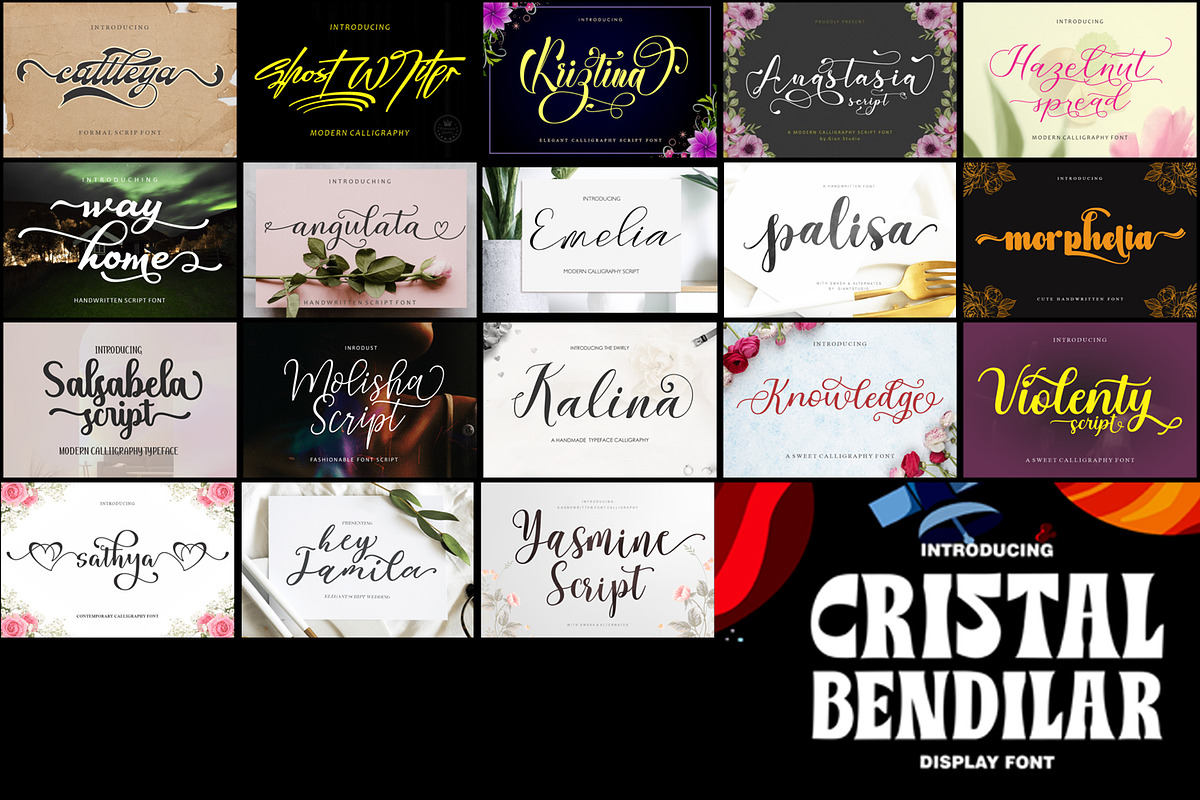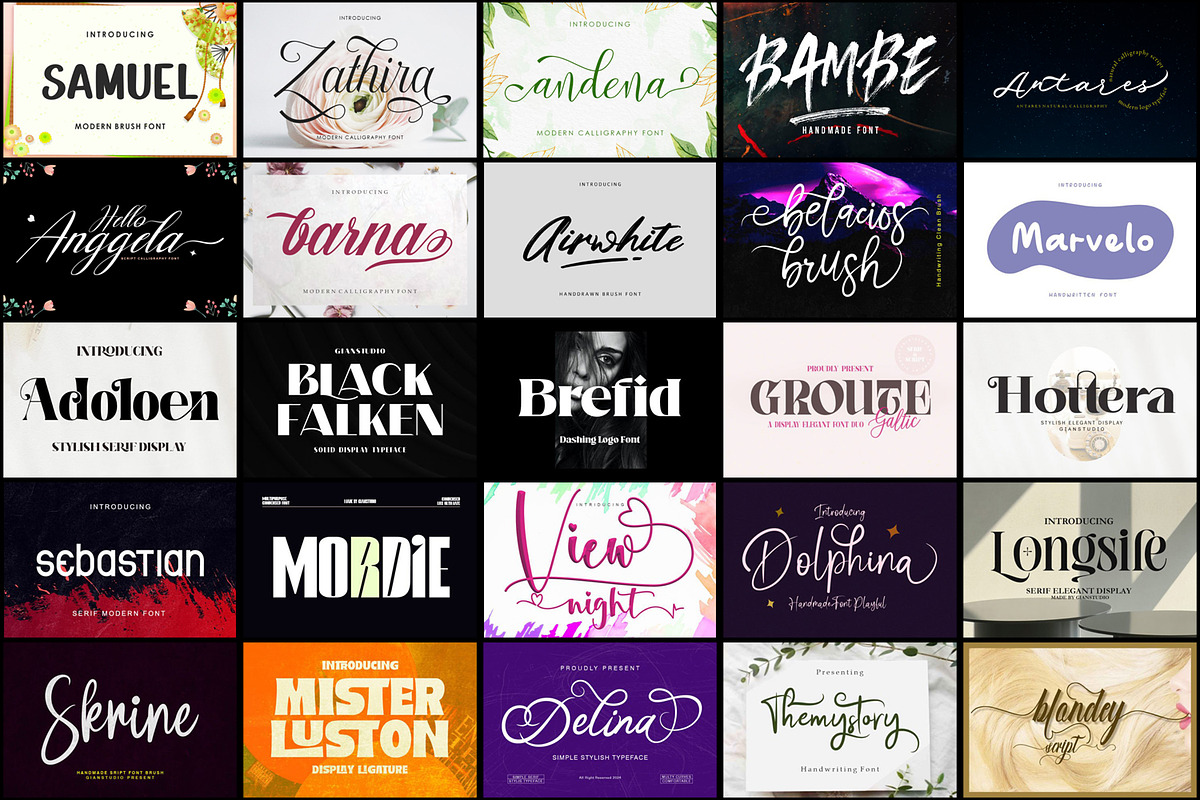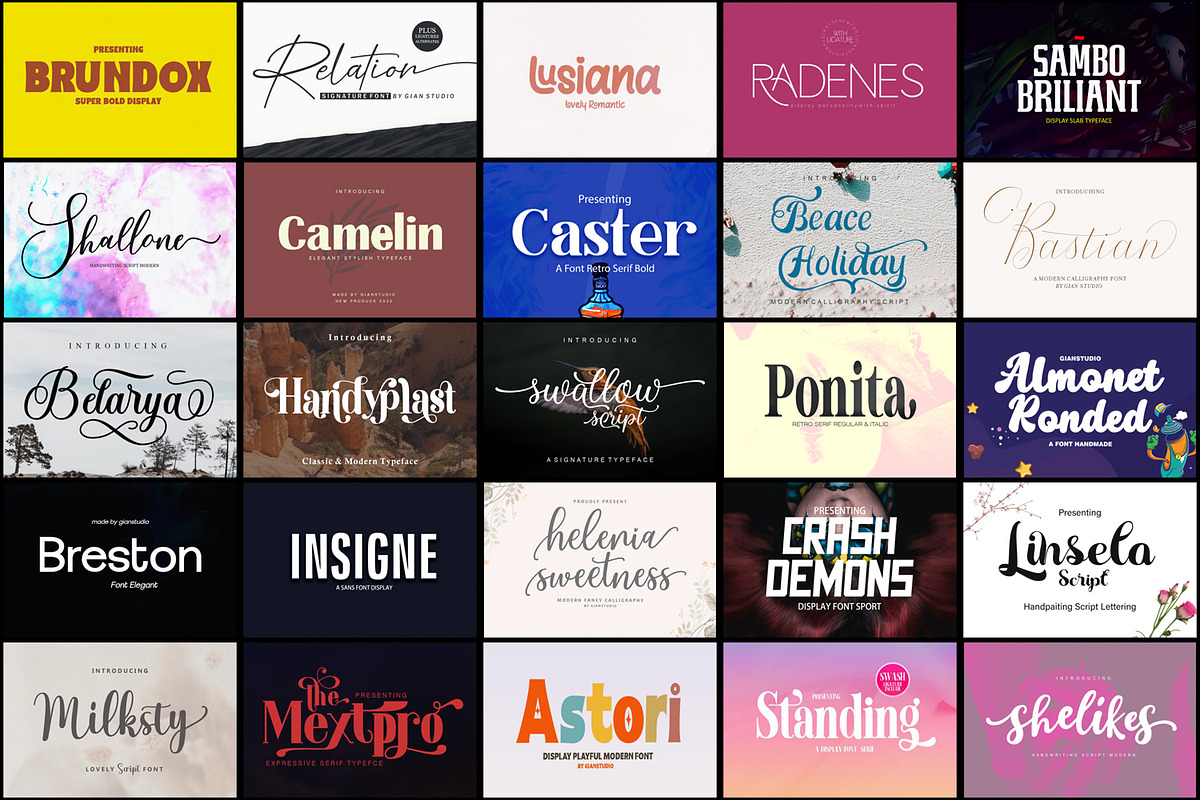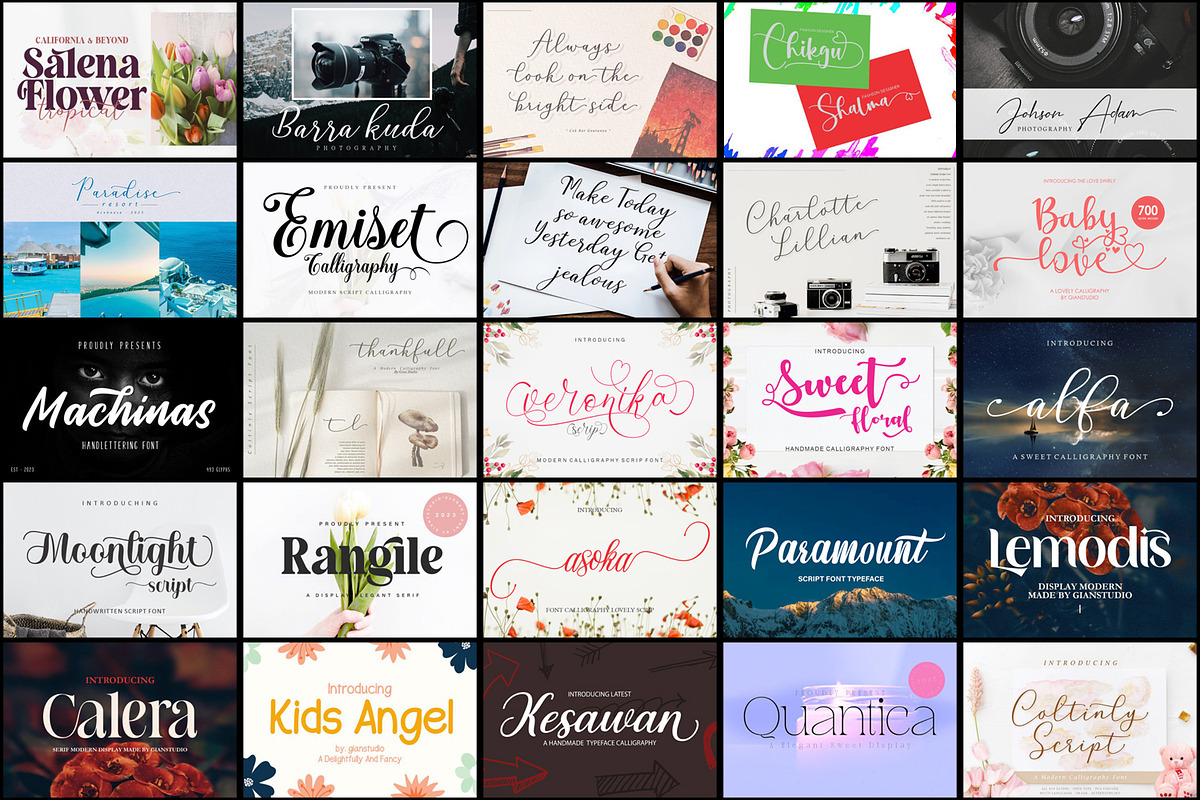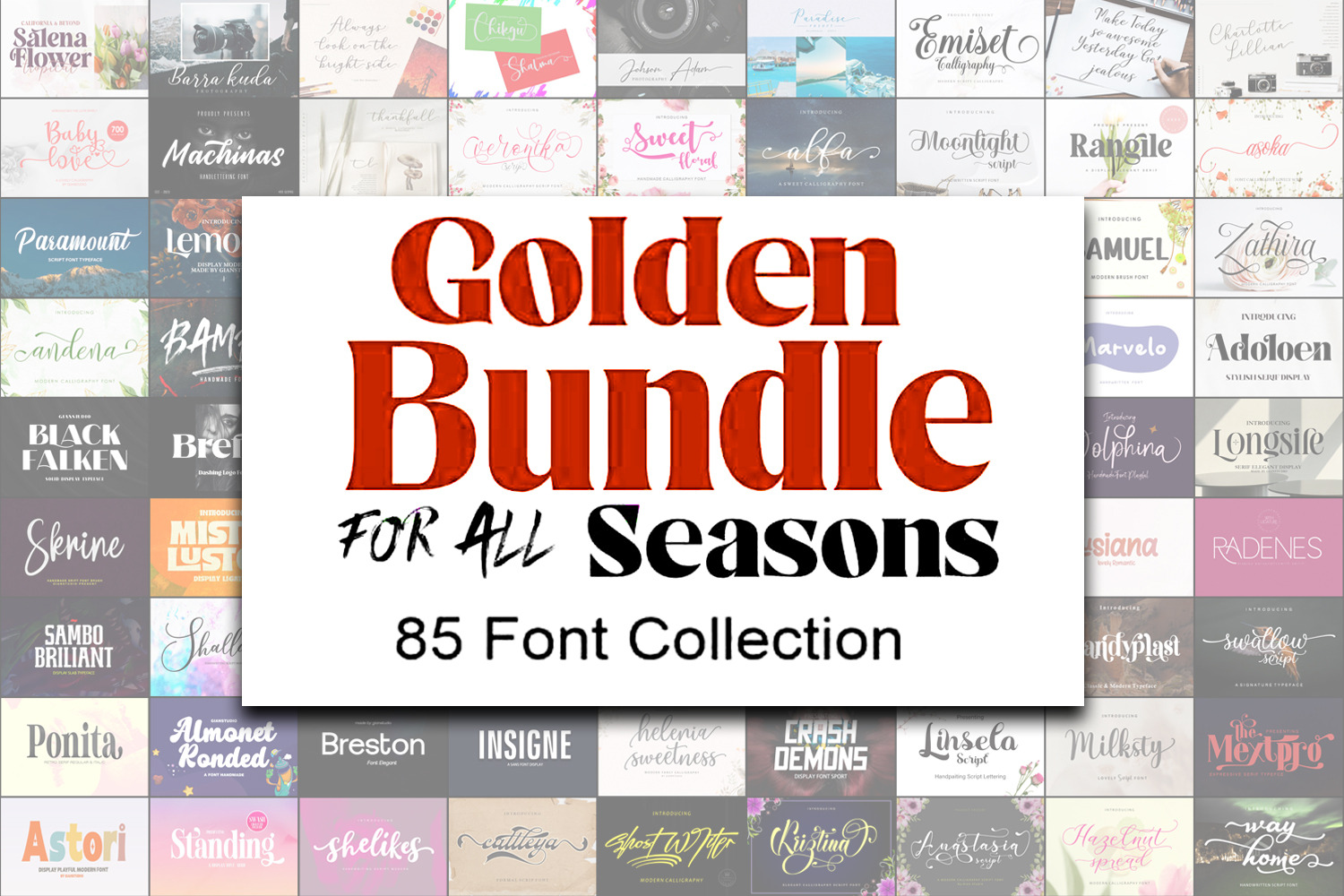
Golden for All Seasons Font Bundle
Golden for All Seasons Font Bundle – 85 Stunning Fonts for Every Creative Occasion
The Golden for All Seasons Font Bundle is an exquisite and expansive collection of 85 stunning fonts, meticulously curated to inspire and enhance your creative projects throughout the year. This bundle is a true treasure for designers, artists, and creatives, offering a versatile range of typographic styles that cater to every season, occasion, and design need. From elegant scripts and modern sans-serifs to playful handwritten fonts and bold decorative typefaces, this collection ensures you’ll always have the perfect font to match the tone and theme of your work.
Whether you're designing for spring, summer, fall, or winter—or creating projects for holidays, special events, or everyday use—this bundle provides the tools to bring your ideas to life with style and sophistication. Each font is crafted with precision and care, ensuring high-quality design and readability across both print and digital platforms.
Key Features of the Bundle: 85 Unique Fonts: A vast and diverse selection of styles, including serif, sans-serif, script, handwritten, decorative, and display fonts.
Seasonal Versatility: Fonts tailored for every season and occasion, from festive holiday designs to fresh spring themes.
High-Quality Design: Each font is meticulously crafted to ensure clarity, consistency, and aesthetic appeal.
What’s Included: This bundle features a rich variety of fonts, such as:
Elegant Scripts: Perfect for weddings, invitations, and branding with a sophisticated touch.
Bold Display Fonts: Ideal for headlines, posters, and social media graphics that demand attention.
Handwritten Styles: Add a personal, casual, or artistic vibe to your designs.
Modern Sans-Serifs: Clean and minimalist fonts for a contemporary and professional look.
Decorative Fonts: Unique and ornate typefaces for adding a creative and eye-catching element.
Seasonal Themes: Fonts inspired by spring blooms, summer vibes, autumn leaves, and winter wonderlands.